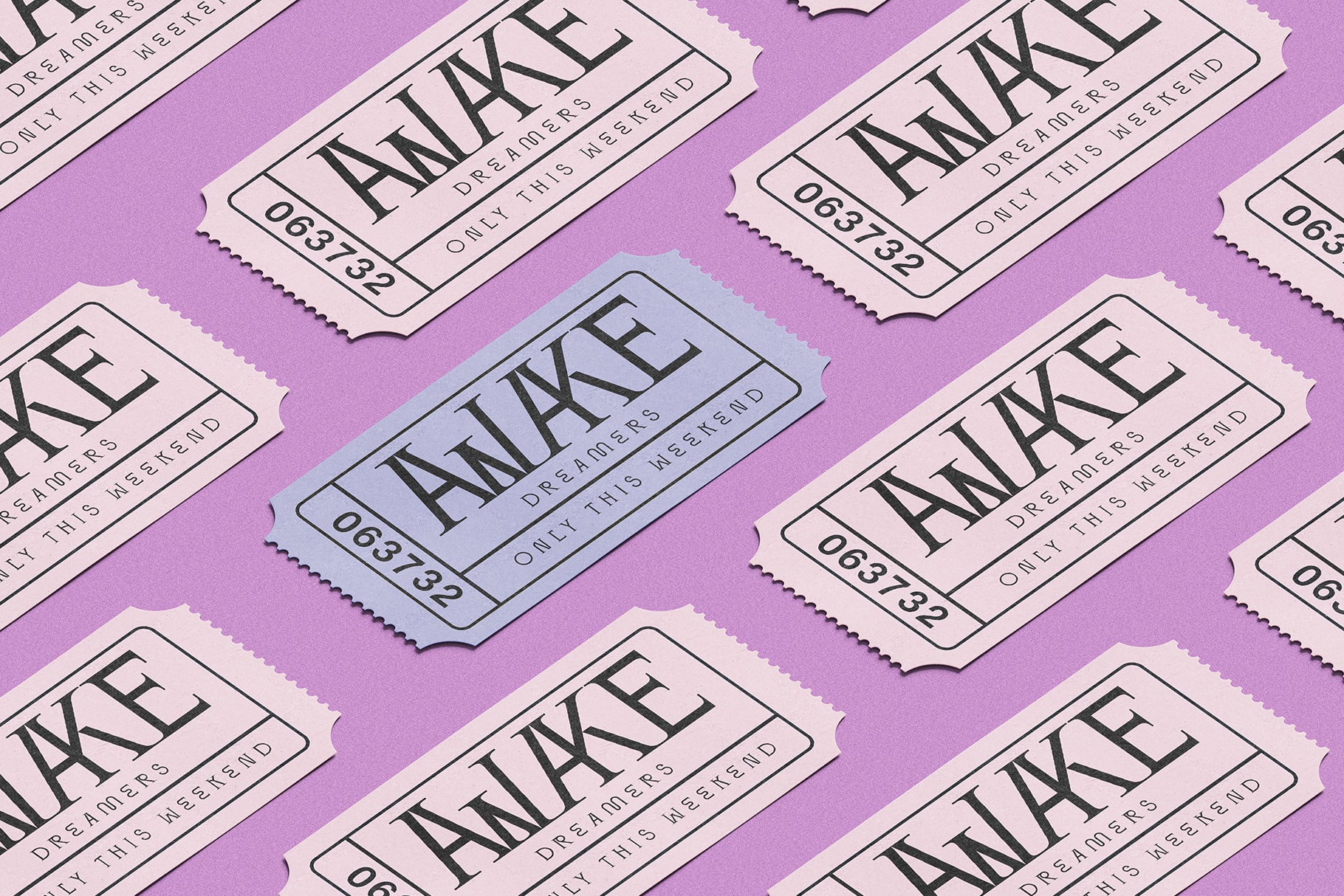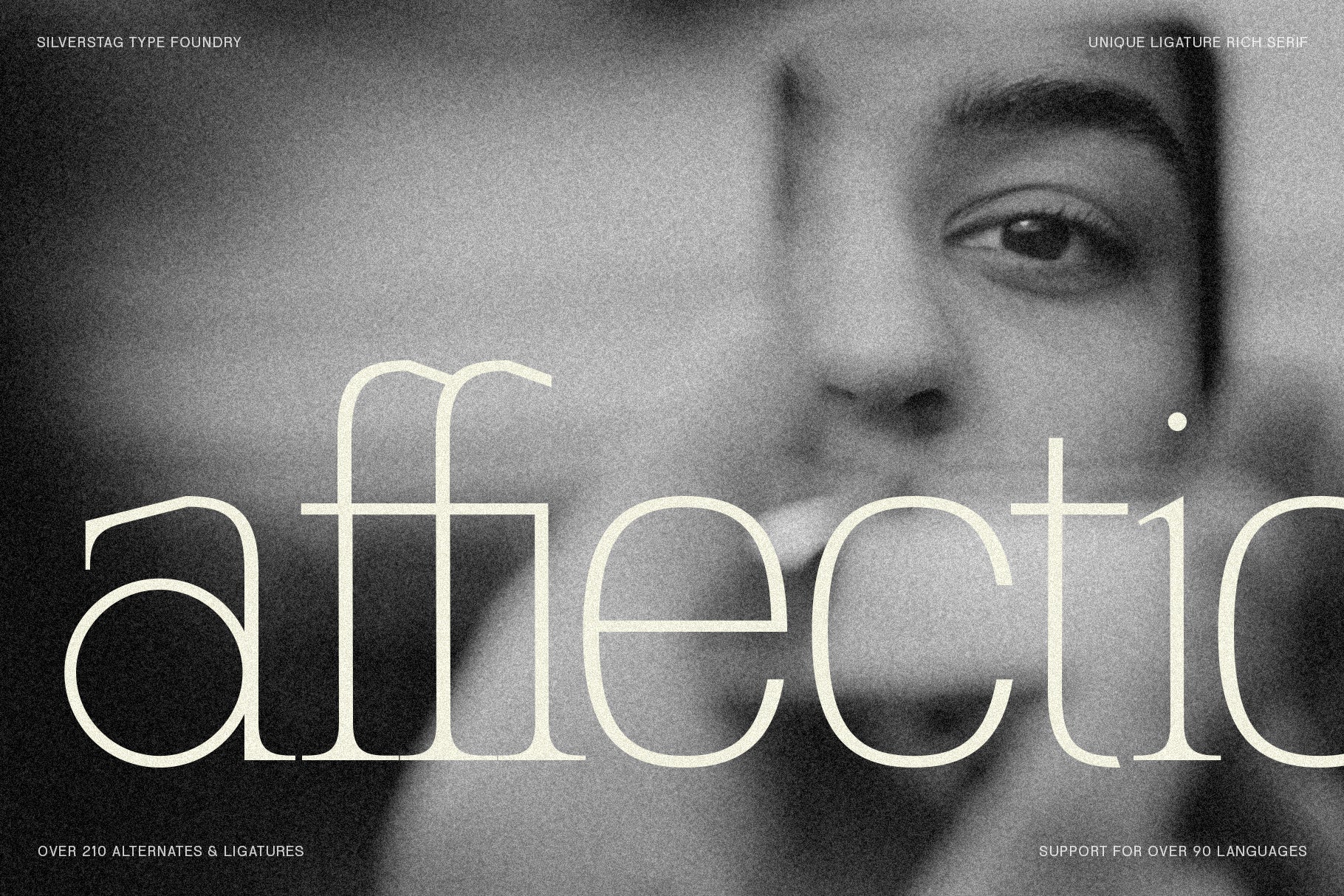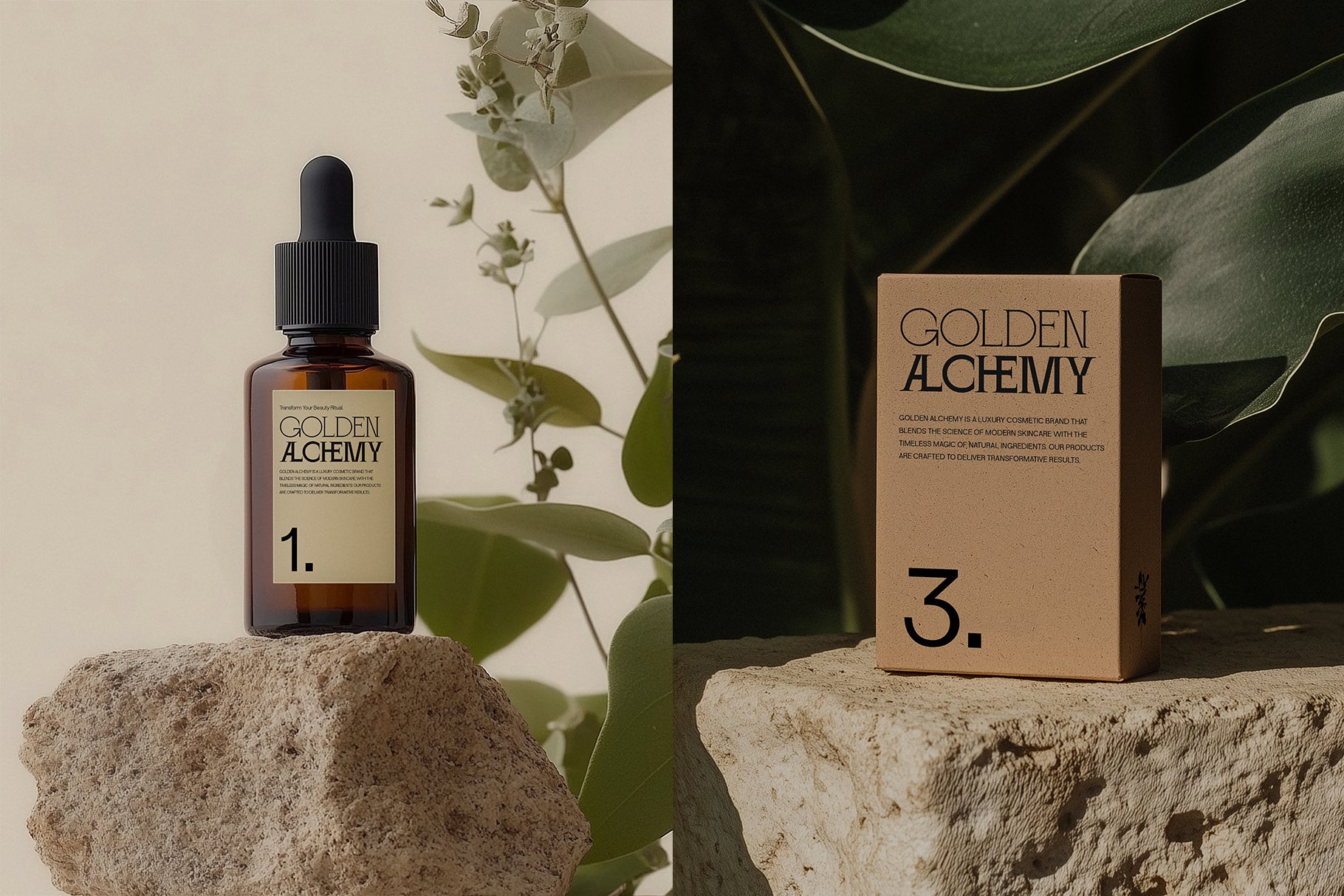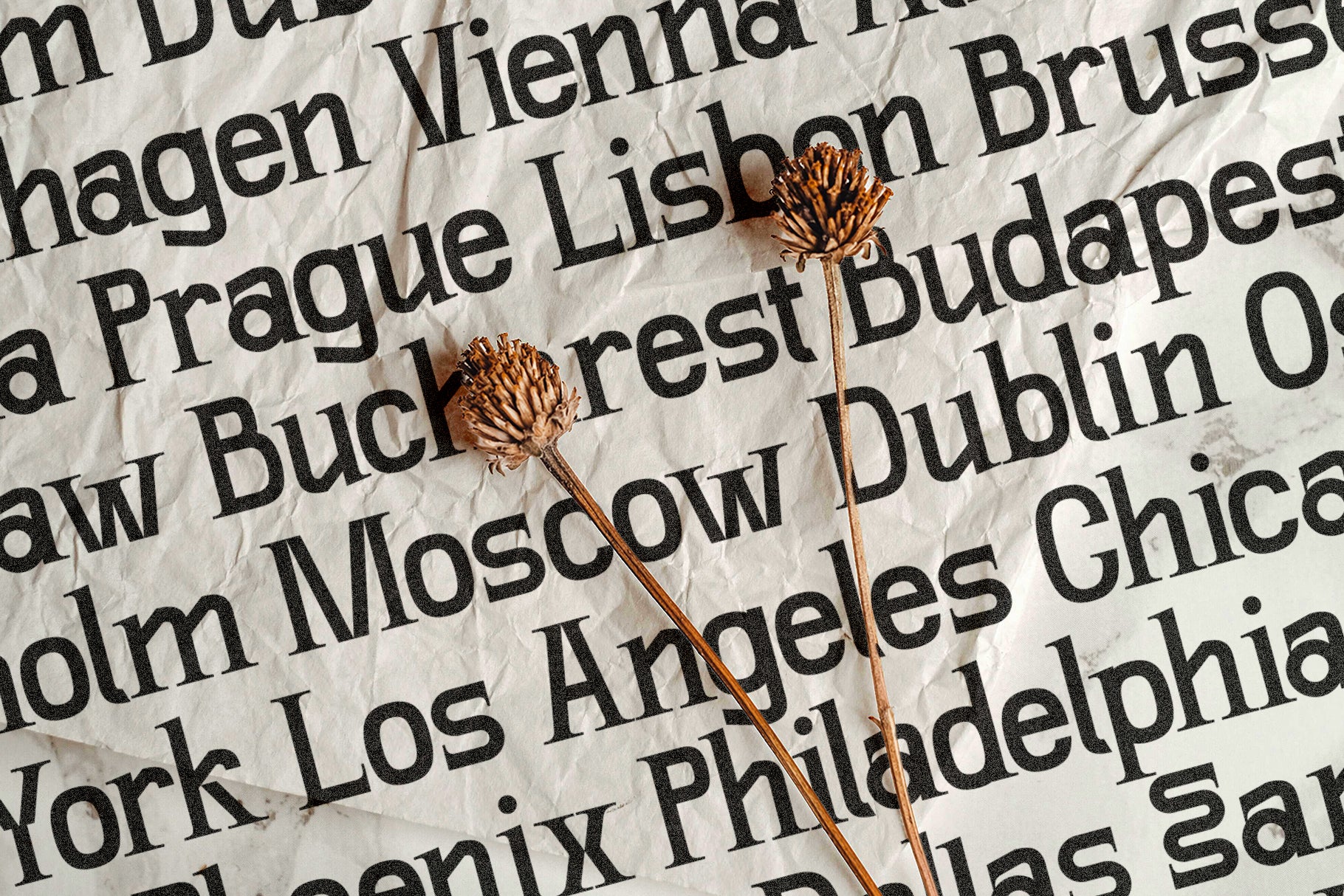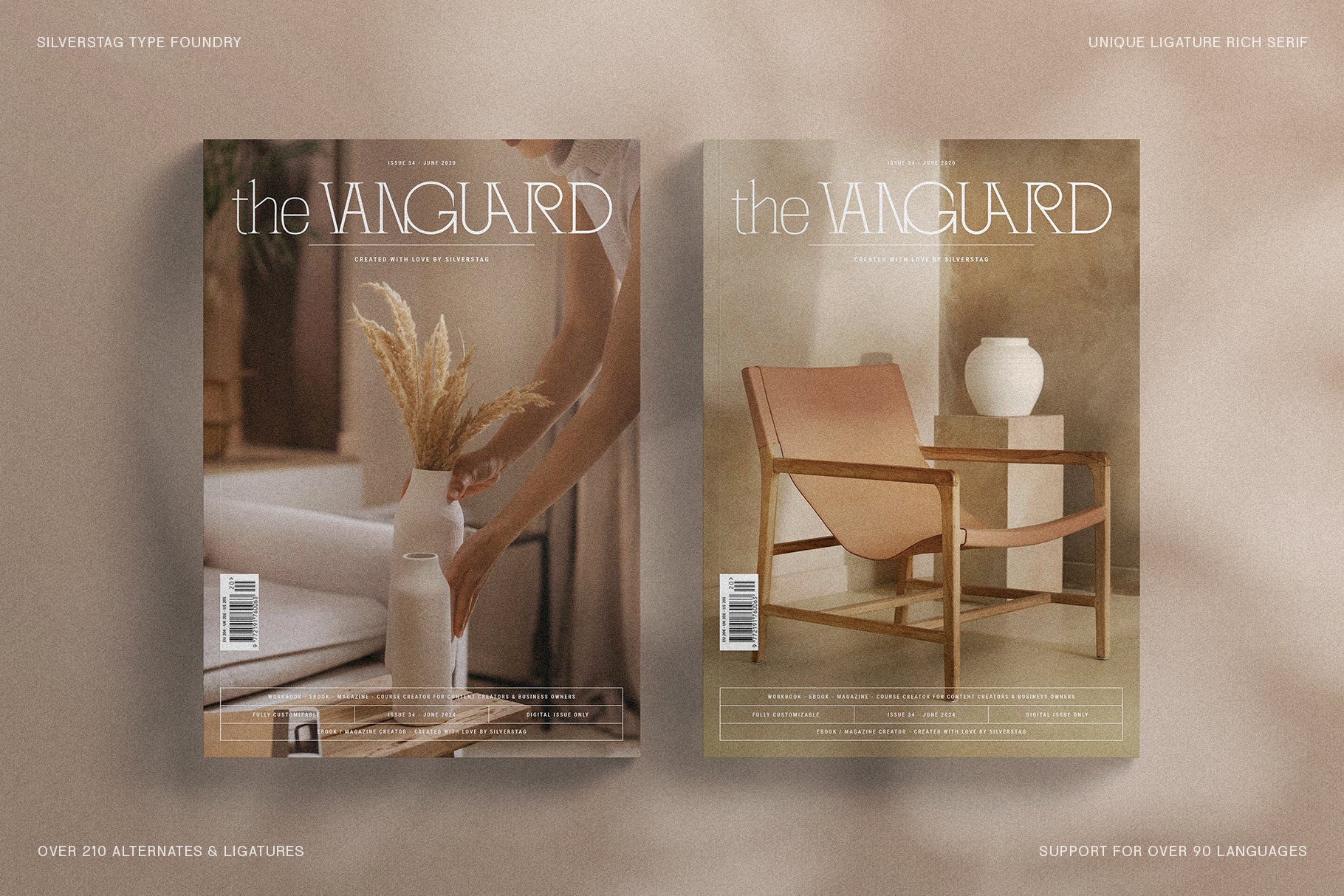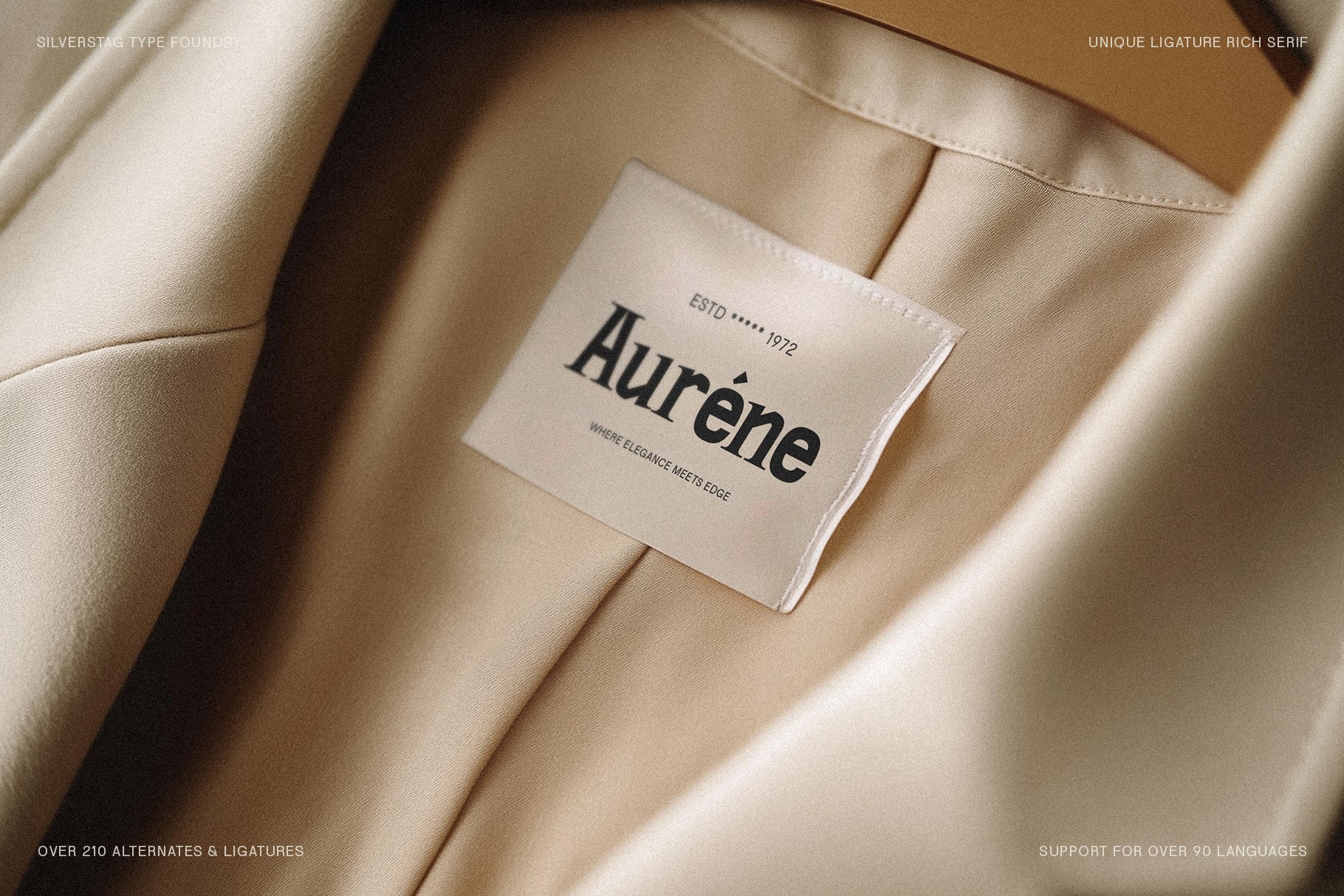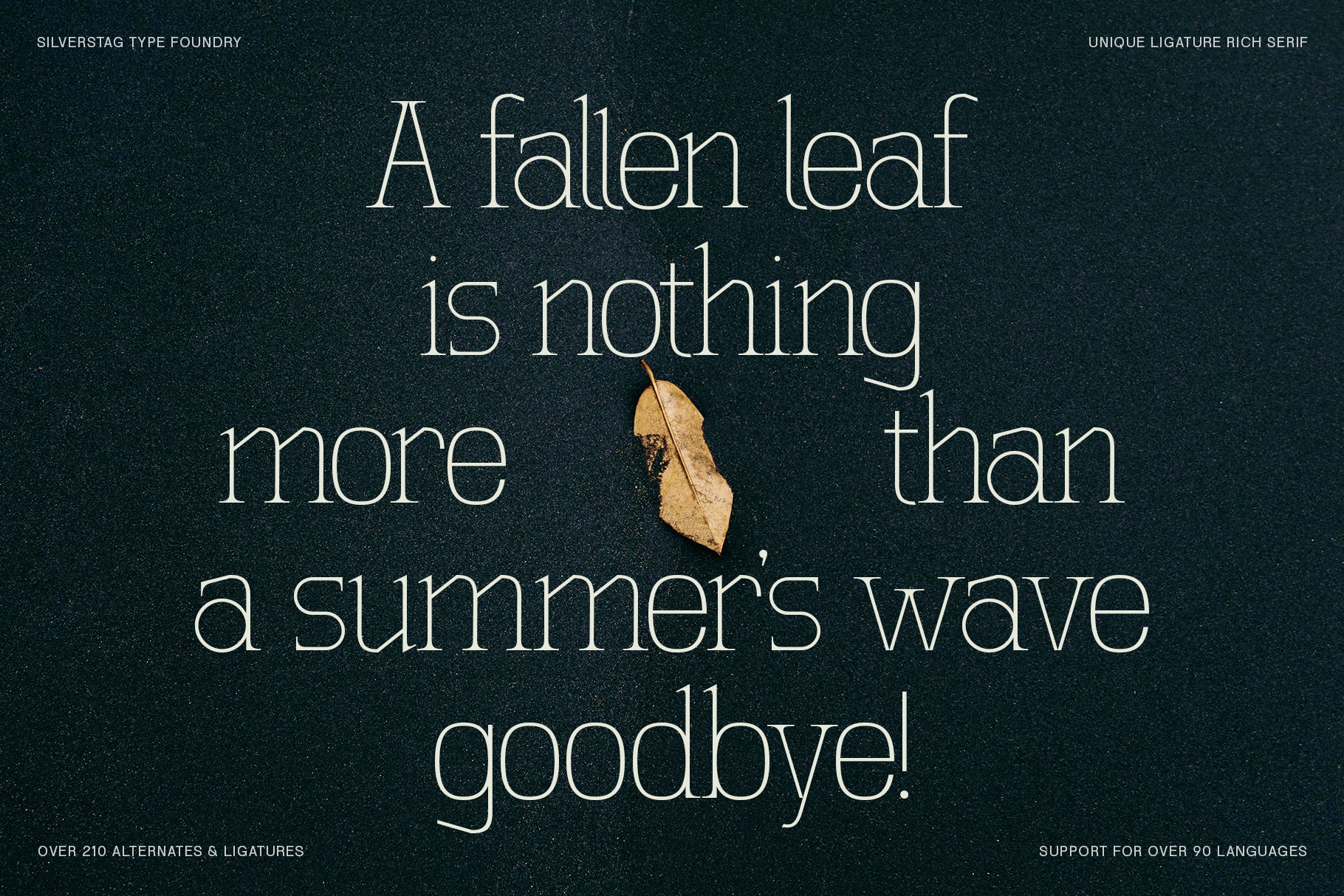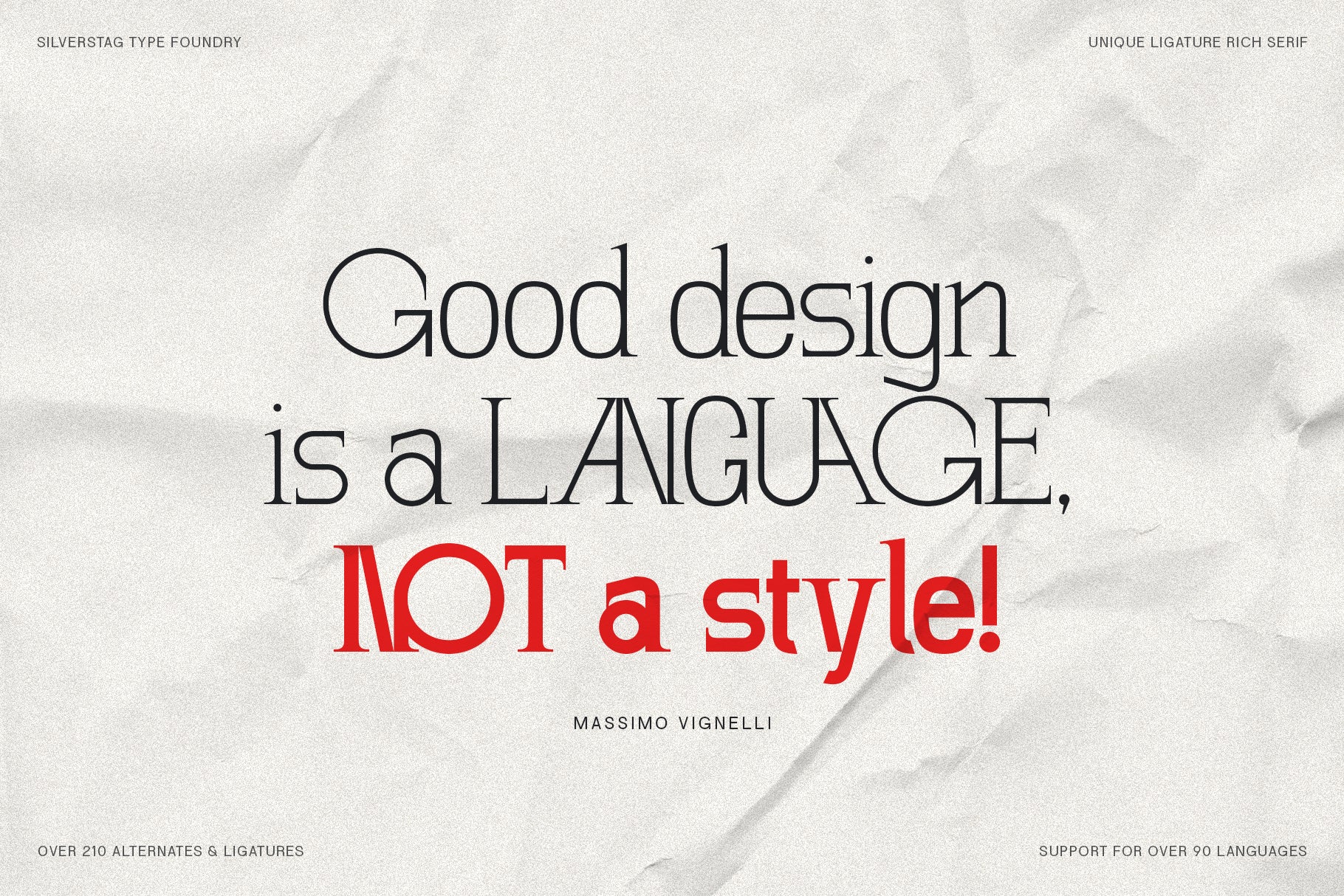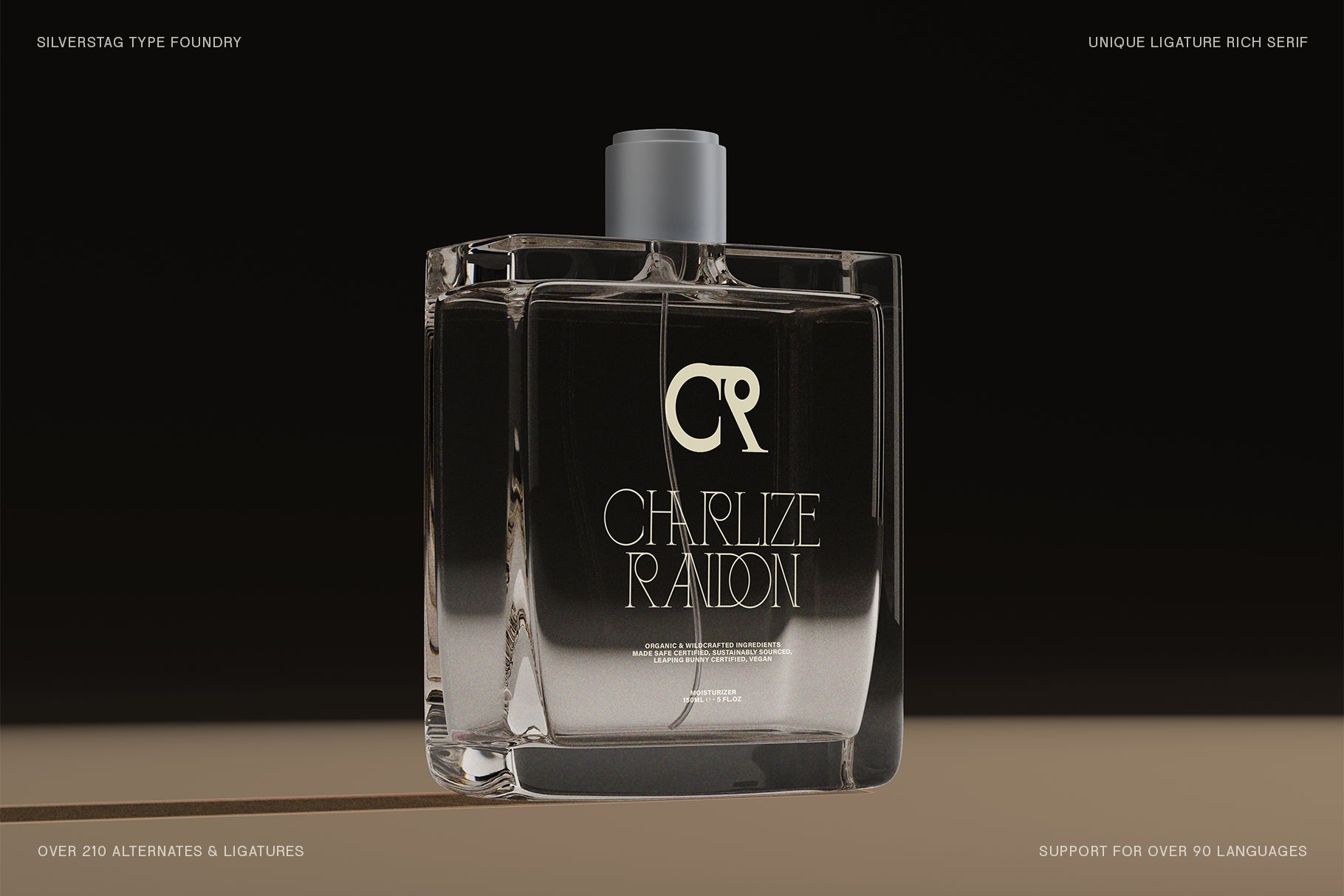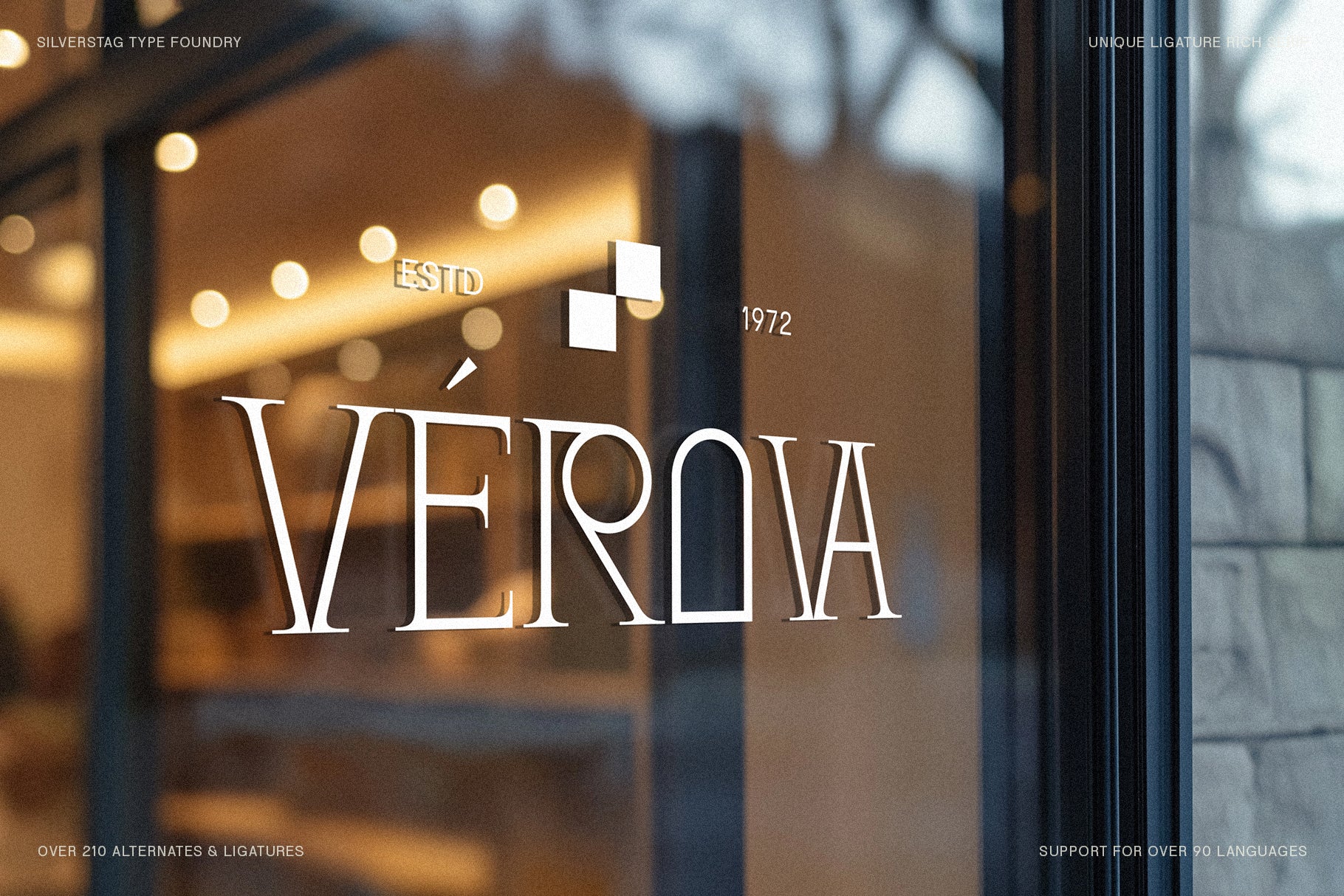
SLTF Winner Baroque is a refined serif typeface that blends baroque-inspired sophistication with the structural clarity of modern grotesk design. With over 210 ligatures and alternates, nine weights from Thin to Black, and full variable font support, this typeface delivers unmatched versatility for elegant branding, high-end editorial work, luxury packaging, and more.
Winner Baroque pairs intricate serif detailing with contemporary form, creating a unique visual identity that adapts effortlessly across print and digital formats. Its generous ligature set allows for expressive typographic creativity, while the variable font gives you precise control over style and weight.
Supporting 90+ languages, SLTF Winner Baroque is also built for global communication. From delicate fashion branding to bold marketing materials, it brings timeless charm and modern flexibility to every project.